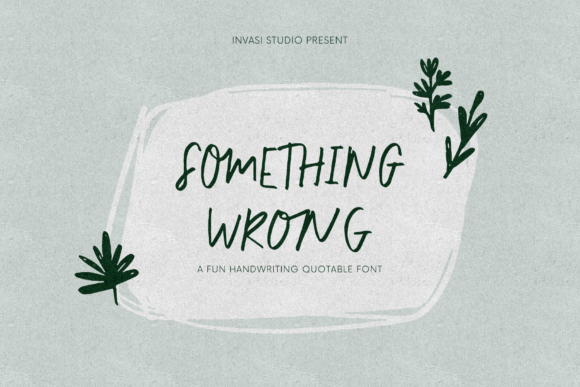
Journey into the world of Something Wrong, a script font family that embodies the carefree spirit of childhood and the boundless imagination of kids. With its playful curves, whimsical strokes, and charming imperfections, Something Wrong is the perfect choice for adding a touch of magic to any design project.
As one of the Best Fonts For Kids Word, Something Wrong captivates with its unique character and versatility. Its organic flow and natural charm make it ideal for creating eye-catching headlines, playful logos, enchanting invitations, heartwarming greeting cards, and captivating social media posts.
Let Something Wrong transform your creative visions into reality. Its ability to blend seamlessly with various design styles allows you to craft projects that resonate with both children and adults alike. Whether you're designing a children's book that sparks wonder and adventure, a toy packaging that promises hours of imaginative play, or a classroom poster that inspires young minds, Something Wrong is your perfect companion.
With Something Wrong, the possibilities are endless. Its amiable nature makes it suitable for personalized gifts, such as mugs adorned with a child's name or T-shirts featuring their favorite quote. Its enchanting quality brings life to product labels, packaging, and branding, creating a memorable impression that sets your products apart.
But what truly sets Something Wrong apart is its ability to evoke emotions. Its playful strokes and cheerful demeanor create a sense of joy and wonder, while its authentic handwritten style adds a personal touch that resonates with audiences.
So, if you seek a font that captures the essence of childhood, ignites creativity, and leaves a lasting impression, Something Wrong is the perfect choice. Let its whimsical charm work its magic, and watch as your projects come alive with a captivating narrative that speaks to the hearts of all who encounter it.